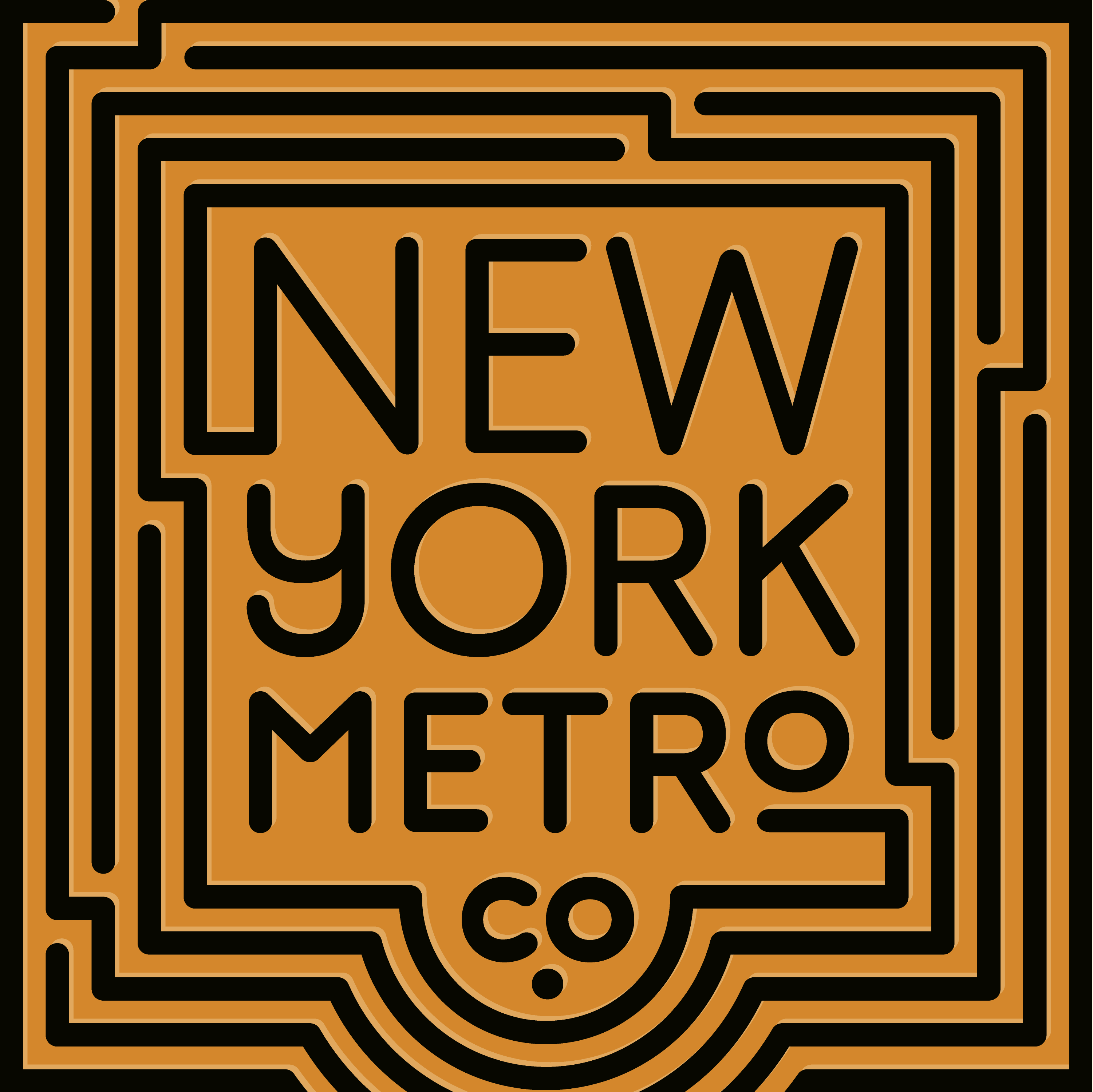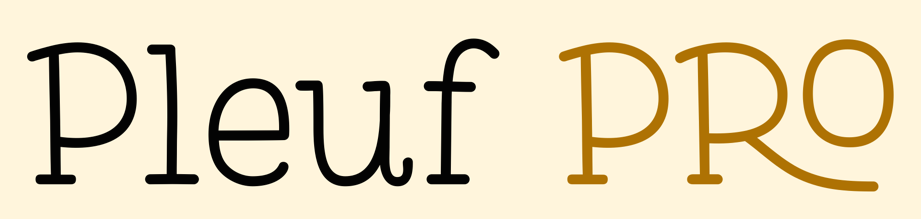
Polytype [Lewis MacDonald]
Lewis MacDonald (Polytype, Glasgow, Scotland) designed the hand-drawn rounded serif typeface family Pleuf Pro (2016), Zippy Gothic (2016, an all caps titling gothic), and the honest rounded monoline sans typeface family Monolog (2016).
Typefaces from 2017: Hellenic Typewriter, Chromatica (a geometric sans).
Typefaces from 2020: Roquefort, Freizeit (a neo grotesk), Spoof (Lewis: Spoof takes cues from rationalist predecessors like Futura, Neuzeit Grotesk and Avant-Garde, but subverts the style with some exaggerated proportions and more grotesque elements).
Typefaces from 2021: Gela (a high-contrast display typeface). Type Department link.